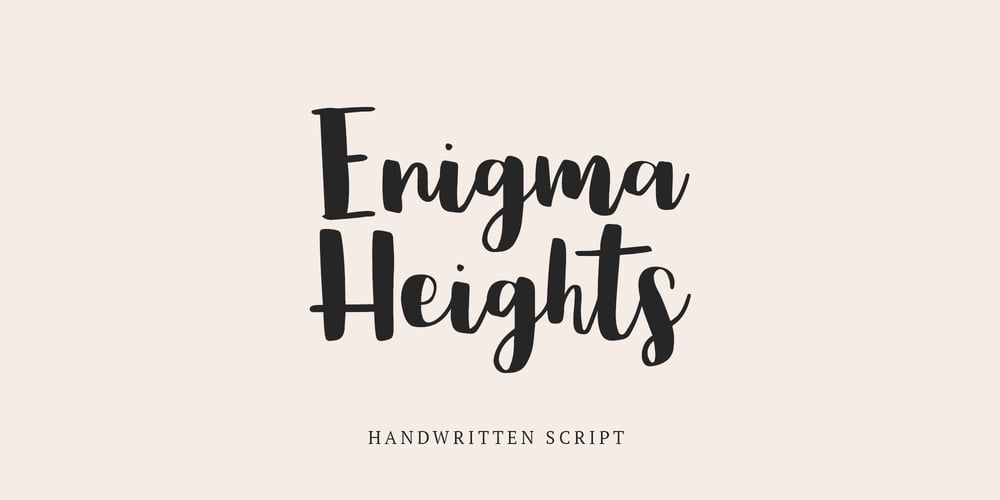
Enigma Heights Font Family was designed by Dmitrii Chirkov and published by Supfonts. Enigma Heights contains 1 styles and family package options. Enigma Heights it is cute handwritten chick font with exquisite accents.This font is perfect for branding, cricut projects, wedding invitations, logos, vinyl, svg files, stickers, cards, signs and more!